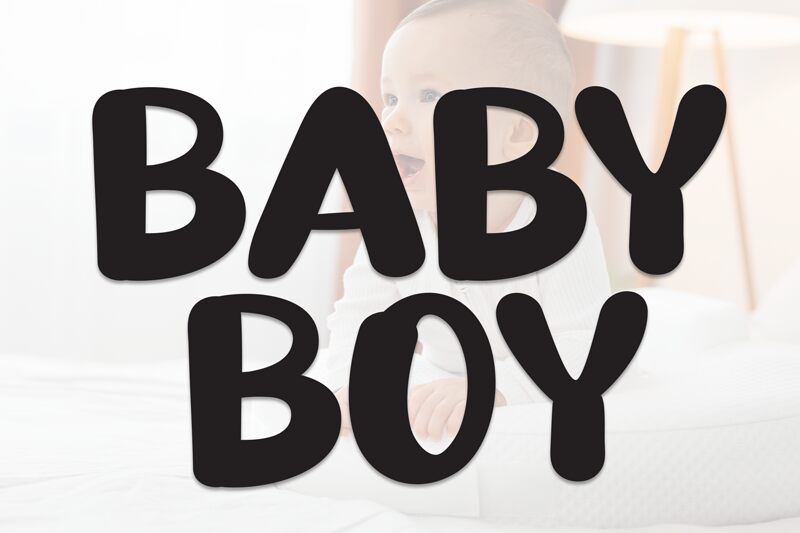
Baby Boy typeface
Baby Boy
This is a sweet and friendly handwritten display font. Cute and fun, this free font is ideal for creating wedding invitations, cards, or any design that needs a playful touch!